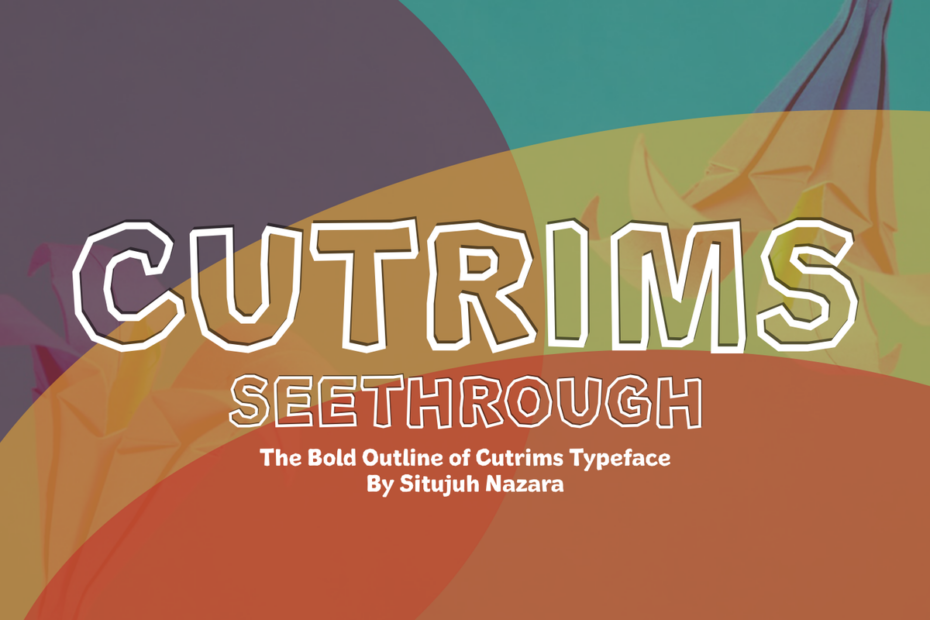
Unlocking the Magic of Cutrims Seethrough Font
Have you ever been working on a design project and suddenly, the perfect font pops into your head? It’s like the universe is whispering your next creative move. For designers, this moment is a thrill – and it’s exactly what happened when the Cutrims Seethrough Font was born. A variation on the beloved Cutrims font, this Seethrough version strips away the traditional text, leaving behind a bold outline that’s just begging to be overlaid on a colorful background.
This is where the magic happens. By using the Cutrims Seethrough Font, designers can add an extra layer of visual interest to their designs, creating a stunning contrast between the text and the surrounding colors. Whether you’re a seasoned pro or a budding creative, this font is a valuable addition to your design toolkit. With its versatility and flair, it’s no wonder the Cutrims Seethrough Font has become a go-to choice for designers looking to elevate their work.
Cutrims Seethrough Font Key Features
- Unique Transparency Effect: This font features a transparent design with a subtle gradient effect, allowing the background to show through.
- Font Size: Supports font sizes from 8pt to 72pt, making it suitable for various design applications.
- Language Support: Supports multiple languages, including Latin, Cyrillic, and Greek alphabets.
- Font Weight: Available in Regular and Bold weights, providing flexibility for different design needs.
Designer Review: Cutrims Seethrough Font
I recently had the chance to work with the Cutrims Seethrough Font, and here’s my honest take on it. ✨ One thing that stands out is its unique and modern design aesthetic. The font is perfect for projects that require a touch of sophistication and elegance. It’s also highly versatile, and I found it to work well in both digital and print applications.
- The font’s seethrough quality adds a creative twist to any design, making it perfect for artistic and expressive projects.
- The high-quality vector format ensures that the font remains crisp and clear even at larger sizes.
- The font is well-suited for use in logos, branding materials, and other visual identity projects.
However, I did encounter a few limitations ⚠️. The font’s seethrough quality can sometimes make it difficult to read, especially in smaller sizes or in environments with a lot of background noise. Additionally, the font’s uniqueness can also be a double-edged sword – while it’s perfect for some projects, it may not be suitable for more conservative or traditional designs.
Overall, I’d say that the Cutrims Seethrough Font is a great addition to any designer’s toolkit. With its unique design and versatility, it’s perfect for projects that require a bit of creativity and flair. Just be mindful of its limitations, and you’ll be sure to get the most out of it.
To get the most out of Cutrims Seethrough Font, use it to add a touch of elegance and sophistication to your designs. Experiment with different font sizes, colors, and combinations to create unique and eye-catching effects.
Common use cases for Cutrims Seethrough Font include:
– Creating eye-catching titles and headings
– Adding a touch of elegance to wedding invitations and event materials
– Designing luxury brand materials and packaging
– Creating unique and eye-catching social media graphics
Alternatives to Cutrims Seethrough Font
Fontdiner Script
Fontdiner Script is a cursive font that can be used for headings and titles. It is perfect for creating a vintage or retro feel in your design. It is more elegant than Cutrims Seethrough Font and can be used for a wider range of designs.